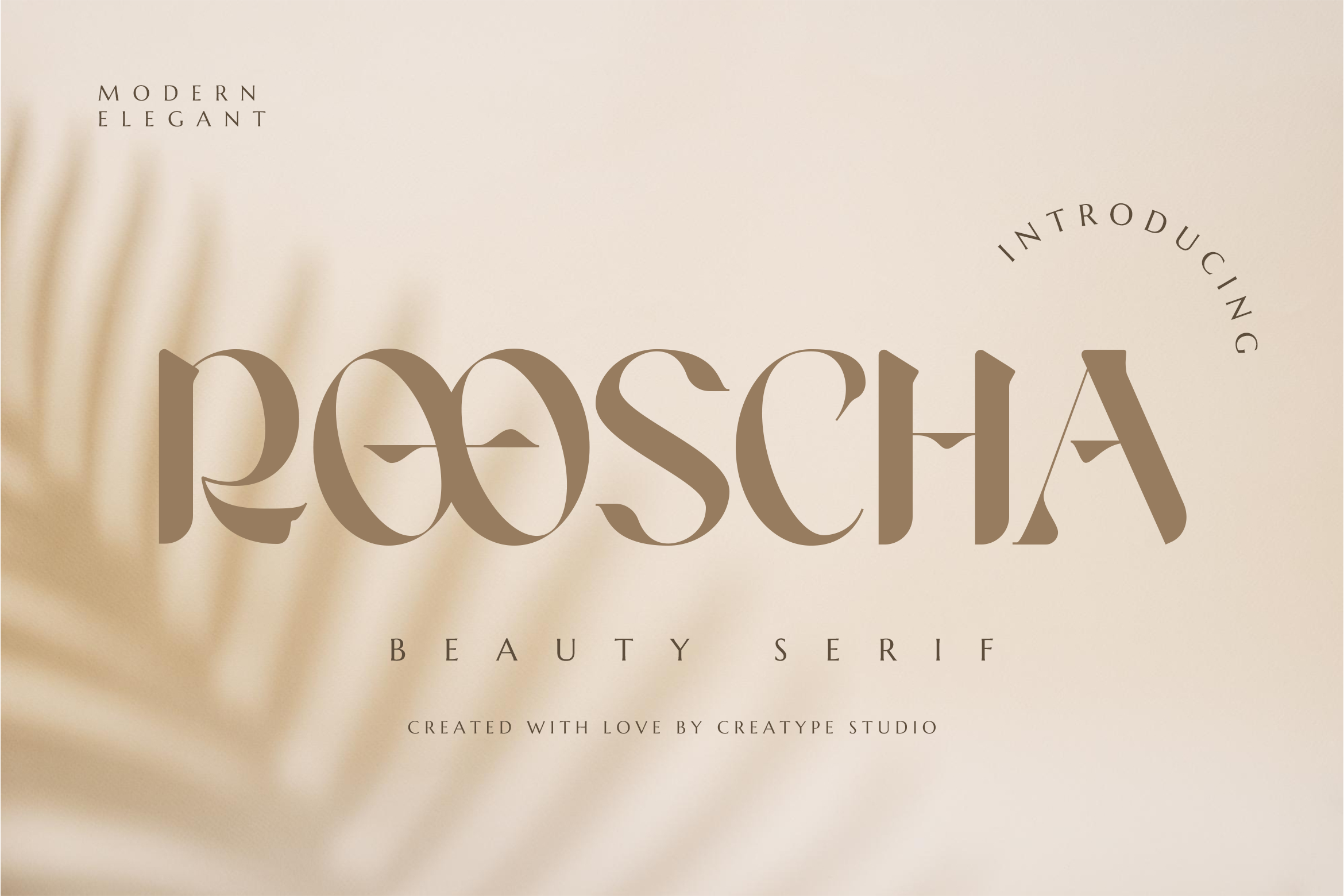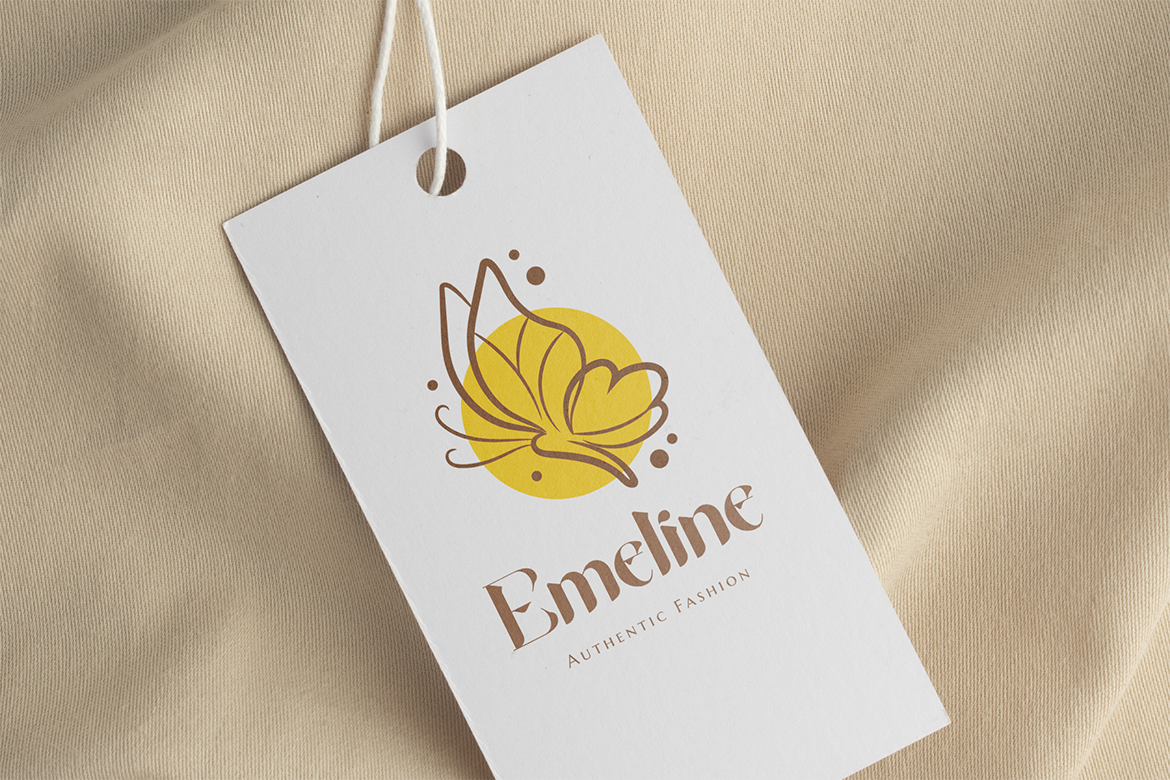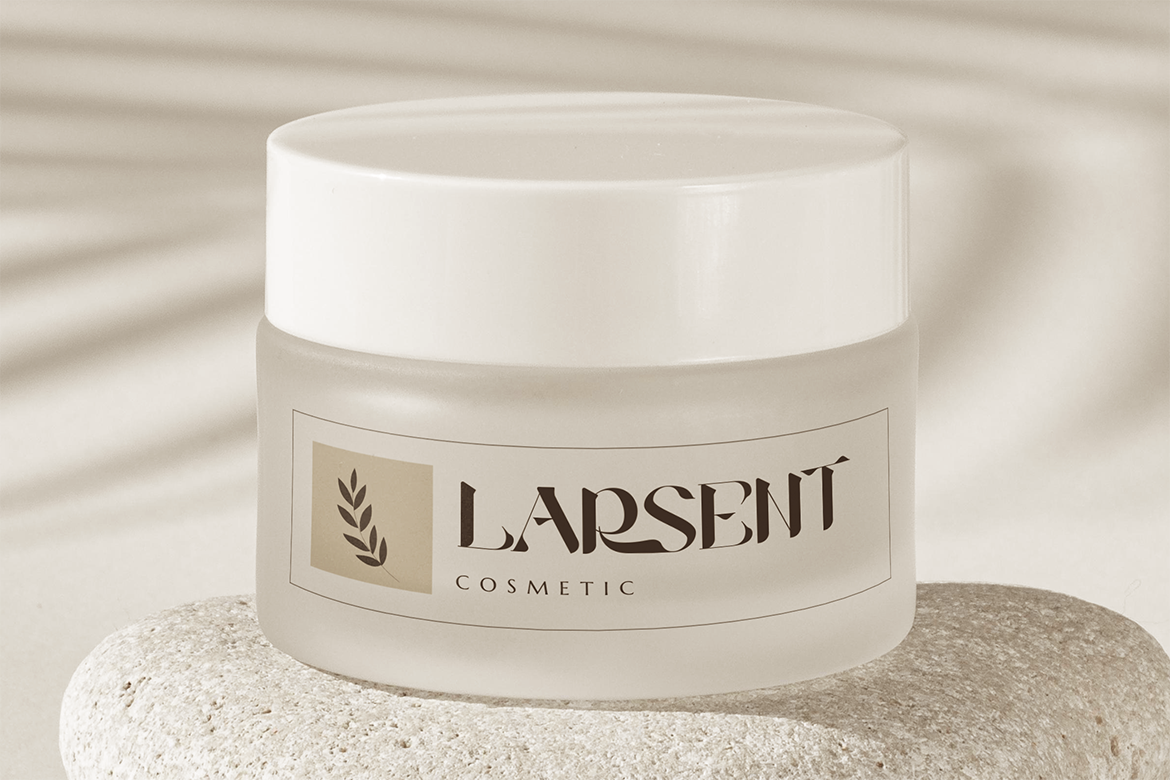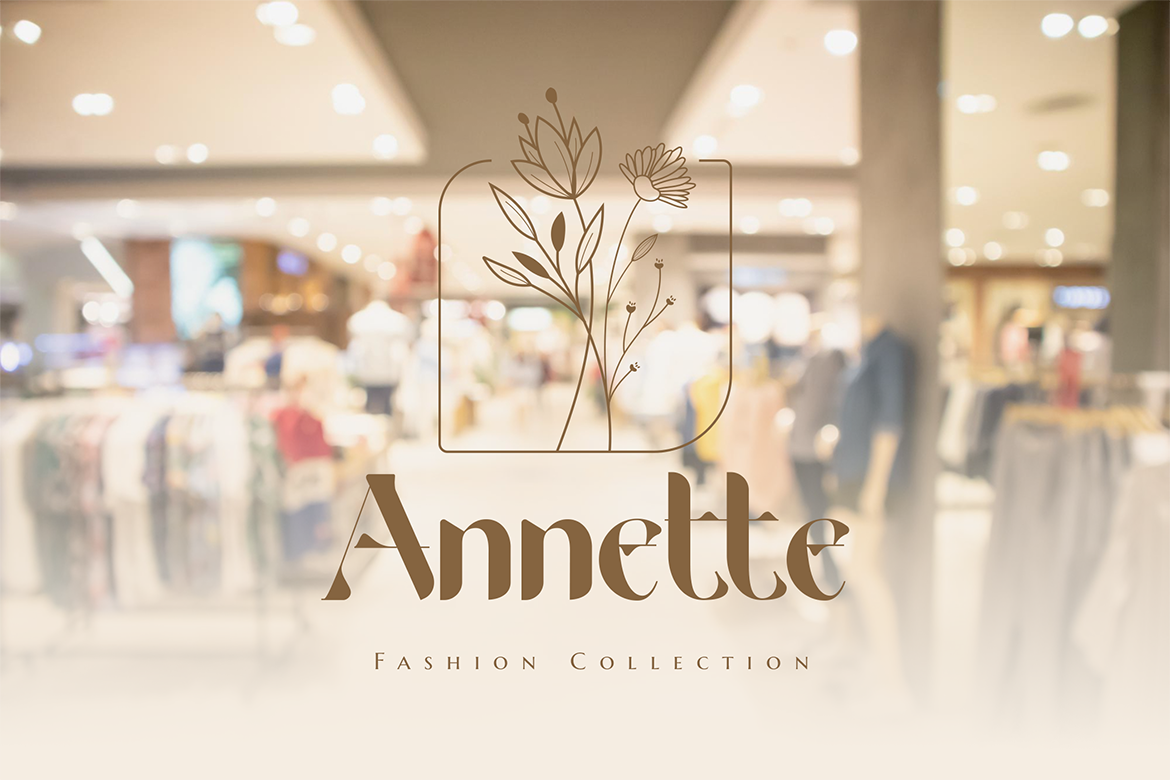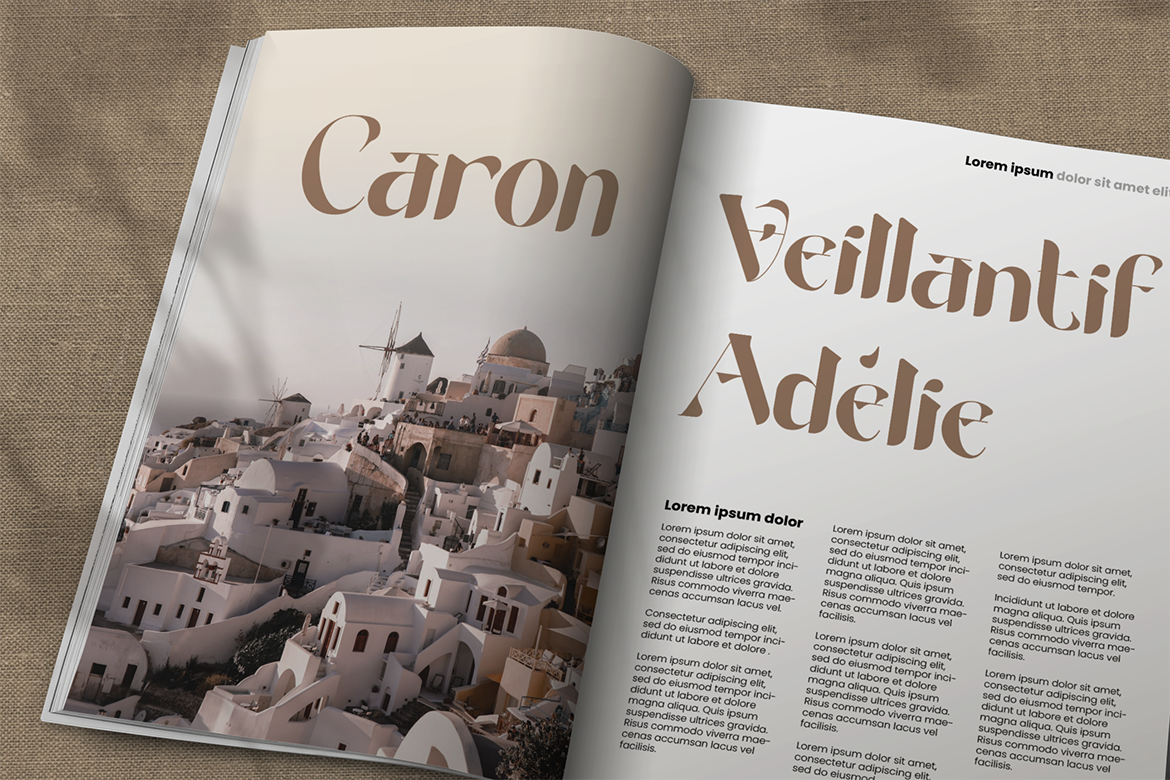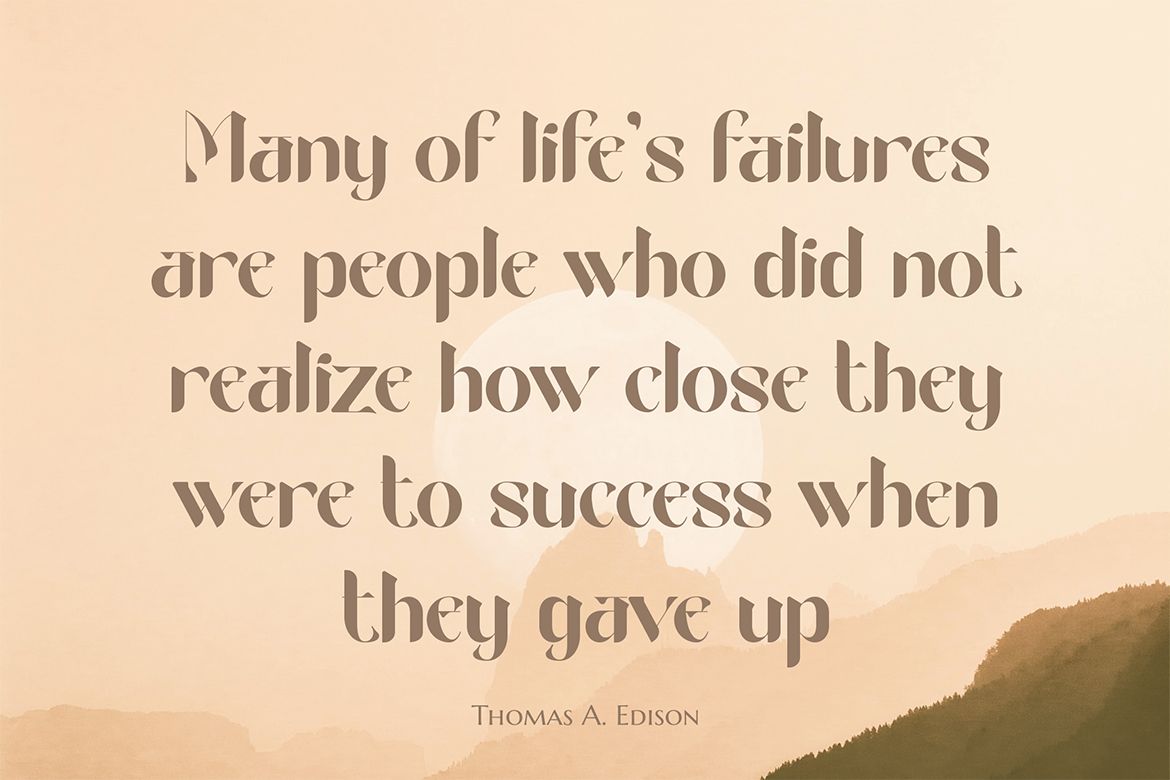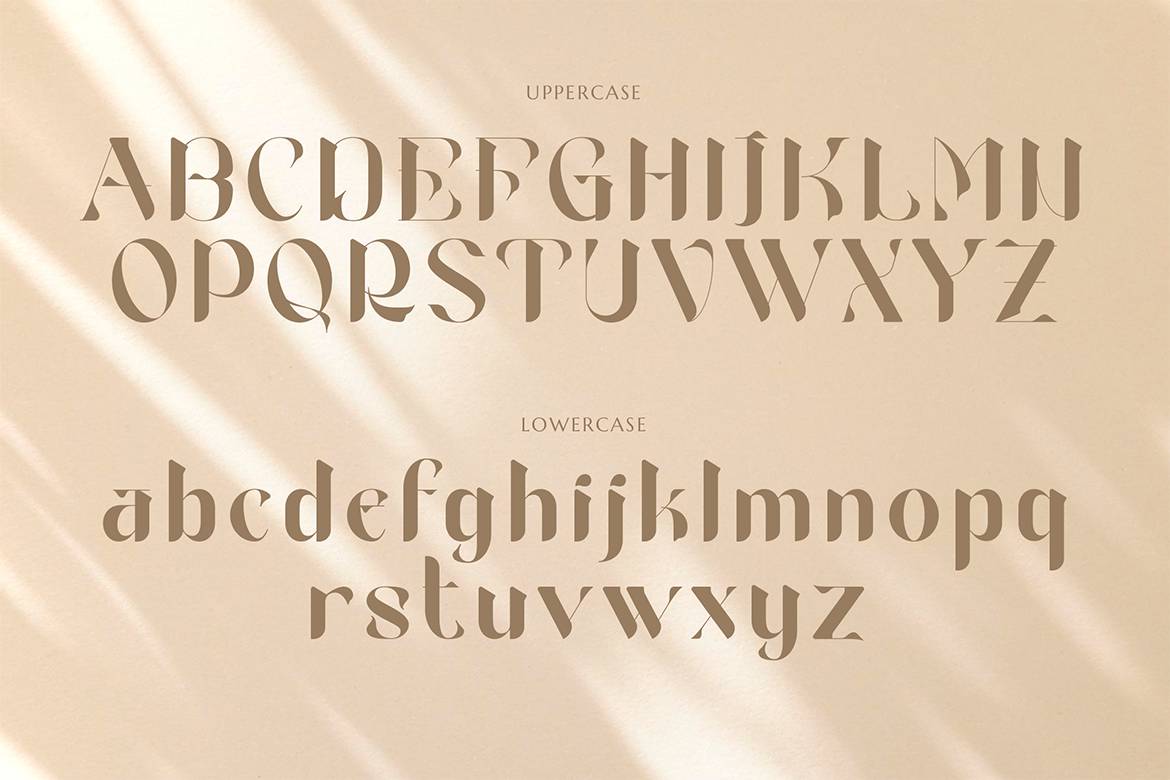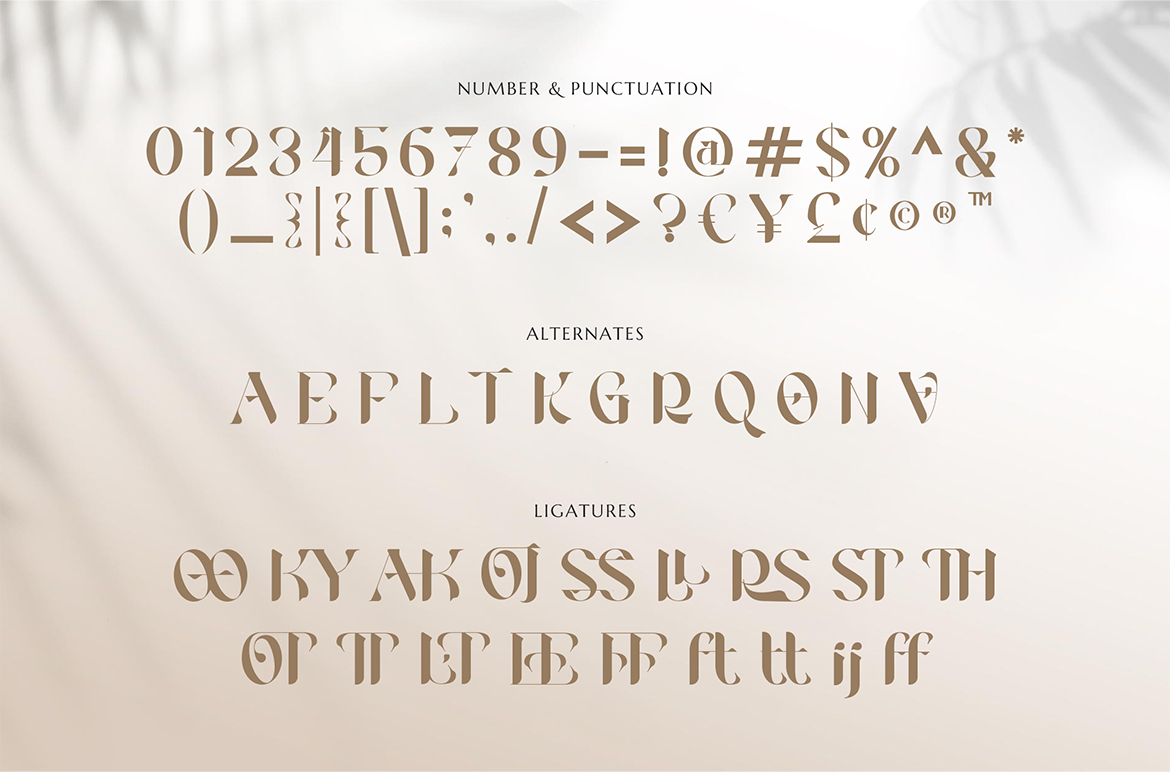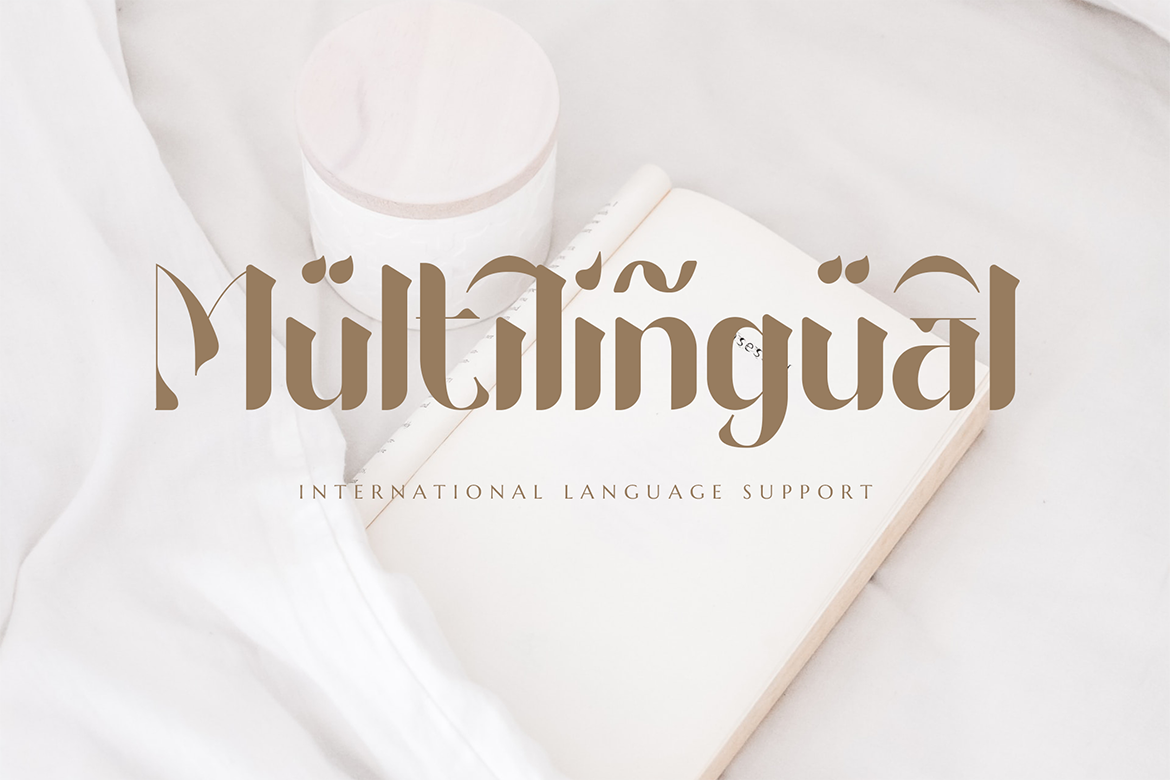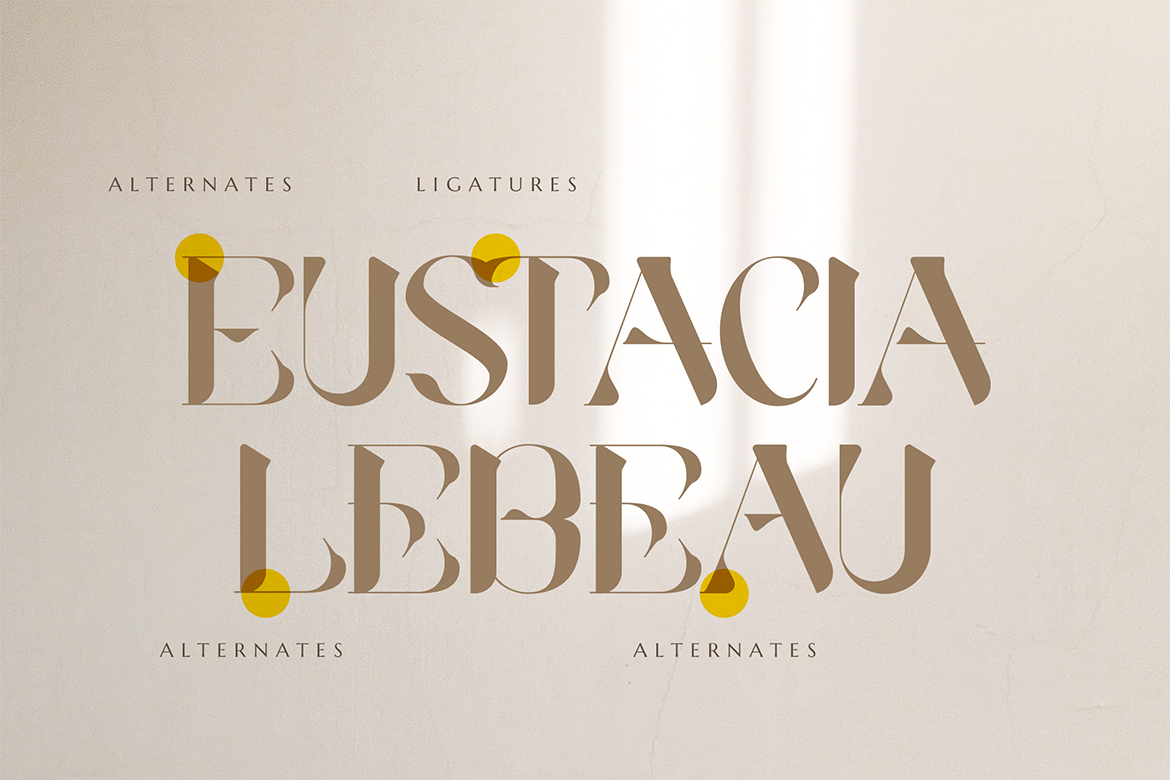
Rooscha, the beauty-inspired serif typeface that captures the feminine spirit of your brand with exquisite grace.
Rooscha is perfect for branding projects, logos, wedding designs, social media posts, advertisements, product packaging, product designs, label, photography, watermark, invitation, stationery, and any projects that need handwriting taste.
Rooscha Beauty Serif